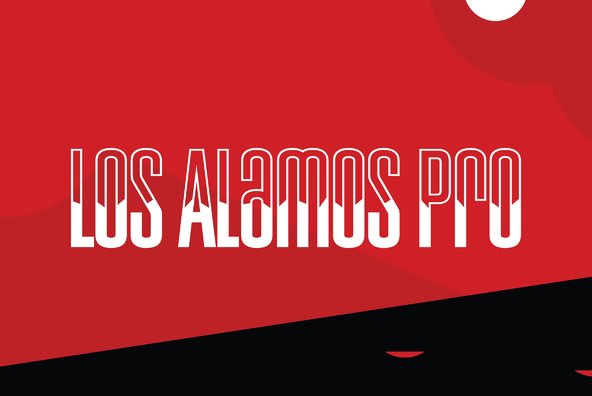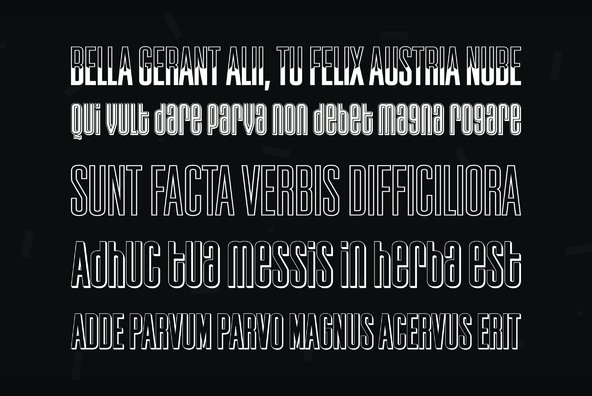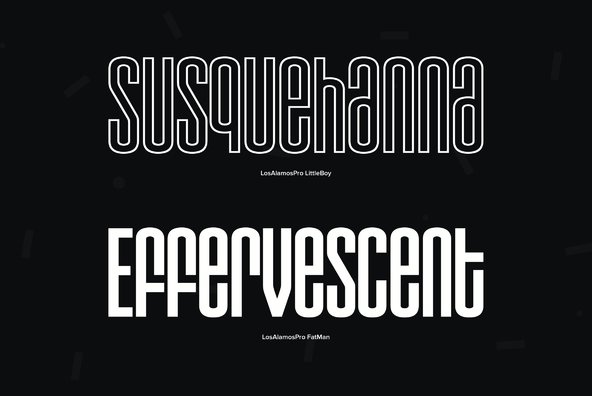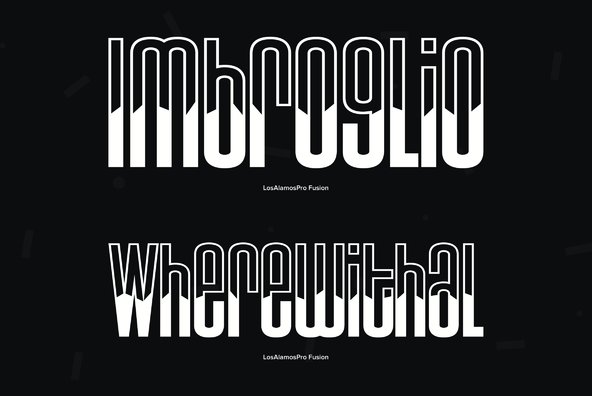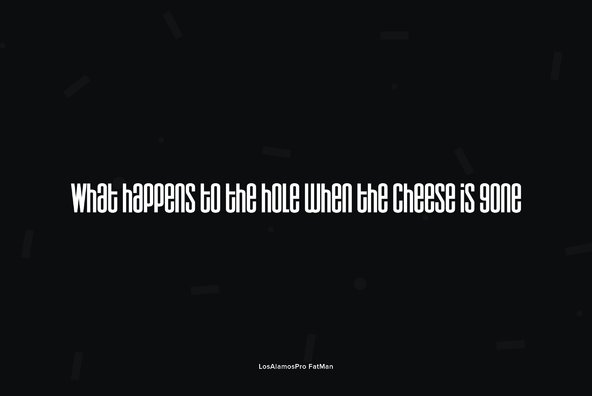
Los Alamos Pro
Although Los Alamos was originally designed as a complementary sister typeface to Grand Canyon, it evolved into a comprehensive and unique type family in its own right. It incorporates a unicase that is fully interchangeable with the caps, and vice versa, giving the user many different options and looks. Los Alamos Pro includes over 800 glyphs and ligatures, and supports 131 languages.